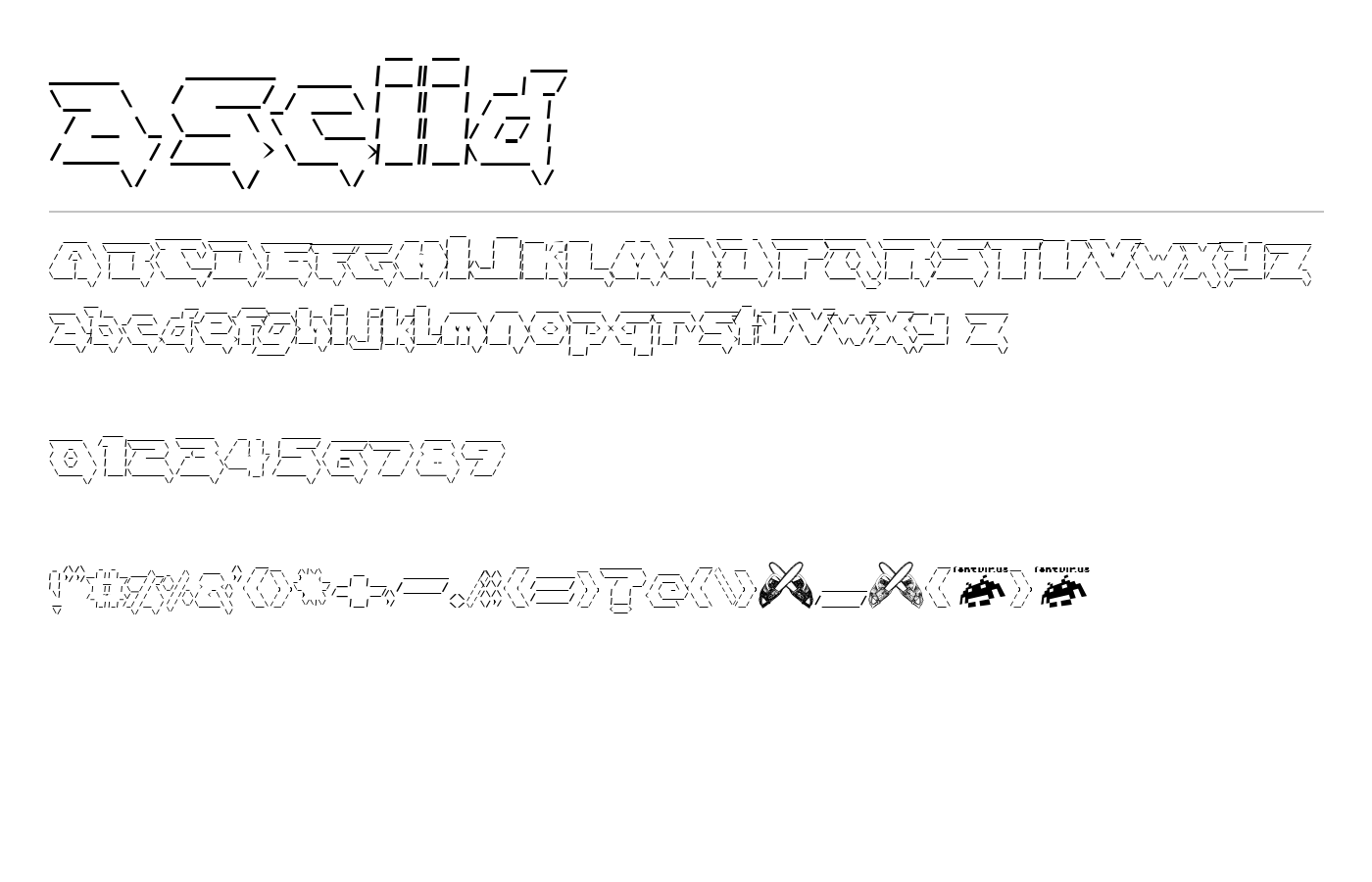
Asciid is a unique monospaced font inspired by classic ASCII art, featuring angular, geometric letterforms made up of thin lines resembling digital strokes. Its futuristic, tech-savvy style makes it ideal for coding environments, retro gaming designs, and digital-themed projects seeking a clean, minimalist yet distinctive look. This font works well for headlines, logos, and creative displays that require a nod to computer culture and pixel art aesthetics.
asciid Font